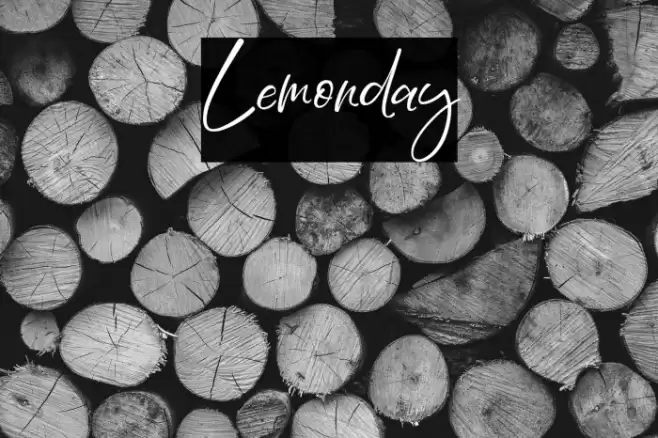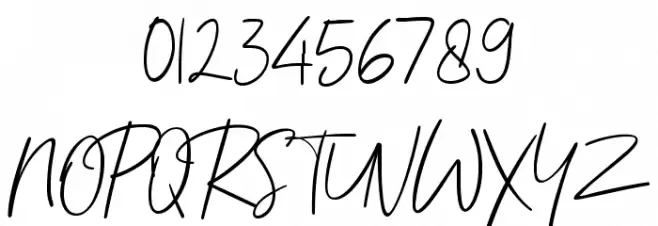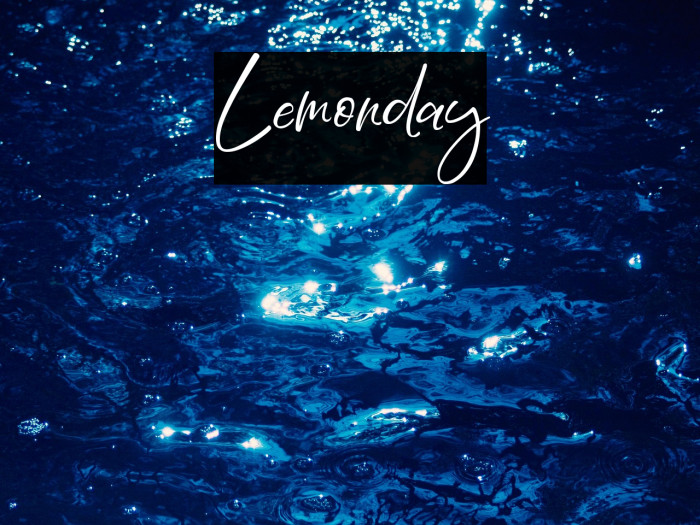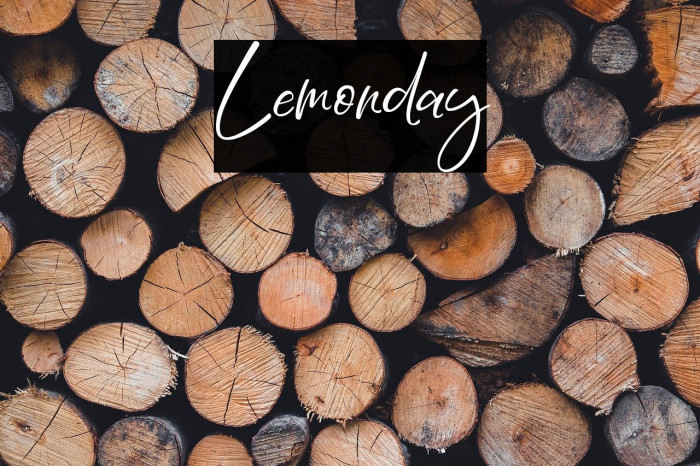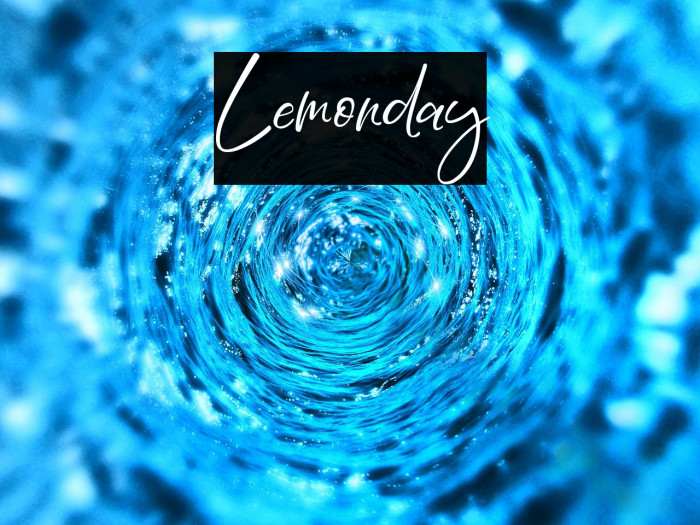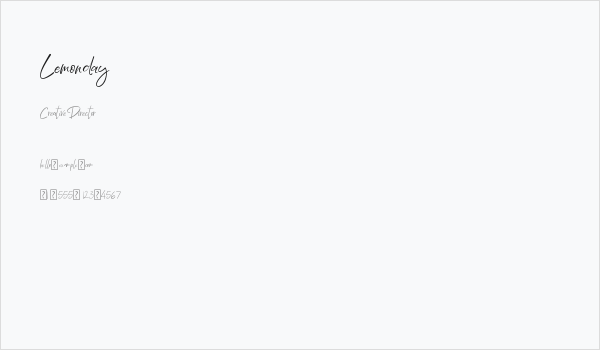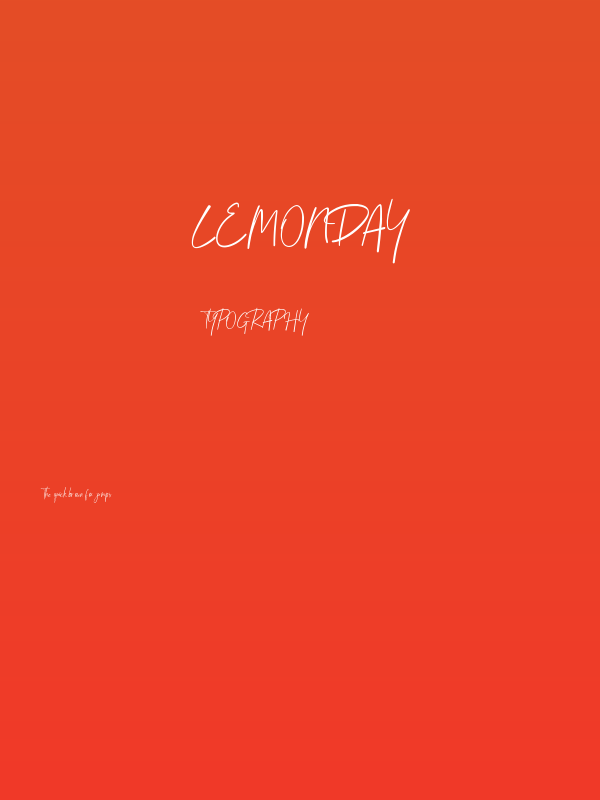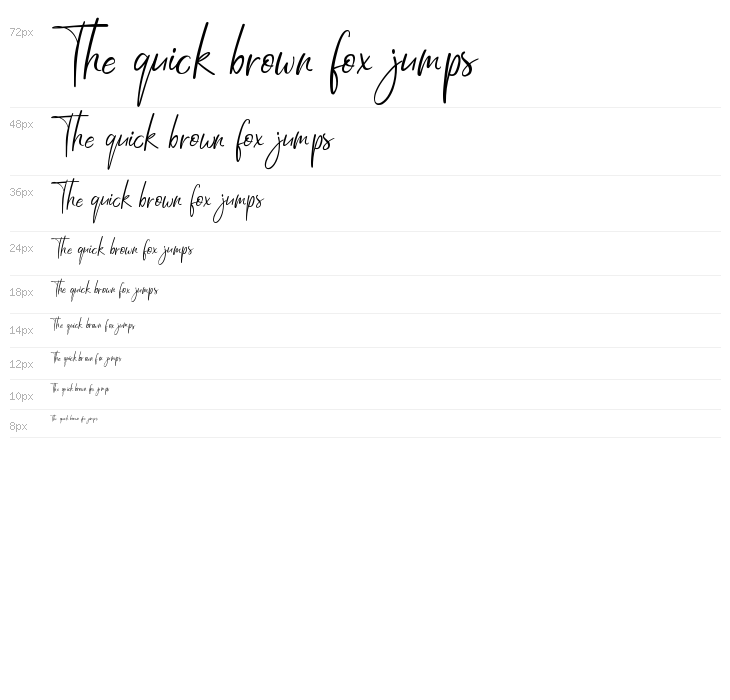
Lemonday Font
Lemonday Description
This font features a lively and energetic handwritten style, characterized by its fluid and dynamic strokes. The letters are slightly slanted, giving a sense of motion and spontaneity. The uppercase and lowercase letters maintain a consistent style, with elongated ascenders and descenders that add to its playful appearance. The numerals and special characters are designed to match the overall aesthetic, ensuring a cohesive look across all text elements. This font's informal and friendly vibe makes it suitable for creative and casual projects.
A lively handwritten font with fluid, dynamic strokes and a playful style from Regular fonts.
- Proposed Projects: Ideal for greeting cards, invitations, personal branding, and creative social media graphics.
- Overall Style: Casual
- Use Case: Logos, Headlines, Invitations